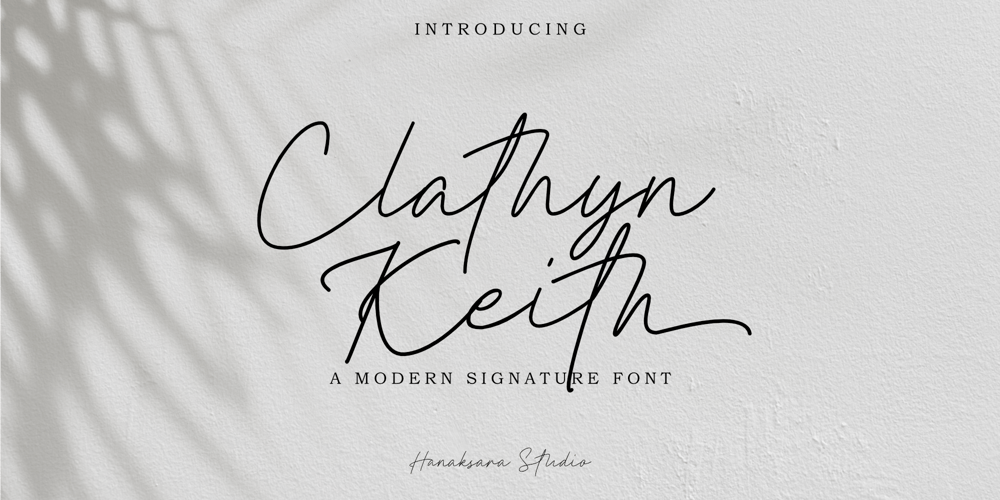
Clathyn Keith Signature
Clathyn Keith Signature font
Clathyn Keith Signature Font Family was designed by Darul Qutni and published by Hanaksara Studio. Clathyn Keith Signature contains 1 styles and family package options. Say Hello to Clathyn Keith Signature!Clathyn Keith is a modern signature font. It’s made by hand, so it similar to natural handwriting. Clathyn Keith is really suitable for branding, signatures, packaging, wedding invitation, or logos that require an artistic and elegant impression.Clathyn Keith is included with dozens of ligatures to keep the maximum impression of handwriting. And we also added several sets of stylistic alternate, swashes and underlines. To access underline you can easily type: Number + double underscore in the middle of sentence.In order to use beautiful alternates and swashes you need a program that supports OpenType features such as Adobe Illustrator, Adobe Photoshop, Adobe Indesign or Corel Draw. Contact us if you have any problem with the files.So, Thank you and Have a nice day!Best Regards, Hanaksara Studio